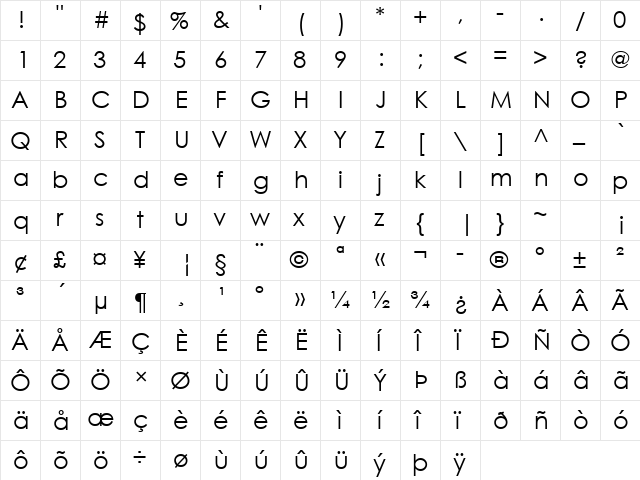
WeezerFont Regular
Design Context for WeezerFont Typeface
WeezerFont is a composed and adaptable typeface that performs quietly and consistently across a wide range of design contexts.